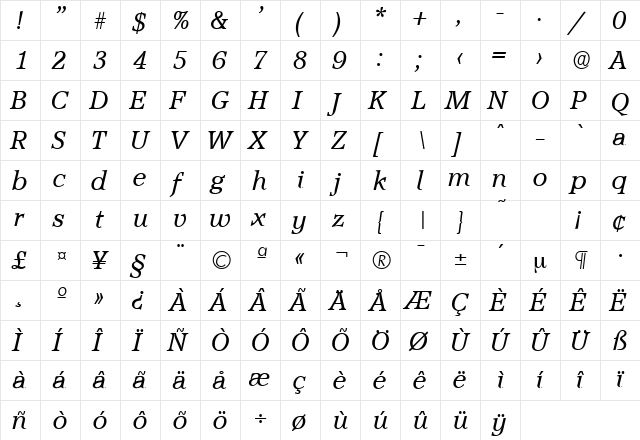
Accolade-Serial RegularItalic
Design Context for Accolade-Serial Typeface
Accolade-Serial offers clean, dependable letterforms without strong stylistic allegiance, making it a practical choice for designers who need flexibility. The slanted form adds forward momentum and visual energy.
Pro Tip: Use Accolade-Serial for emphasis, pull quotes, and subheadings where its slanted energy can add rhythm to the layout.